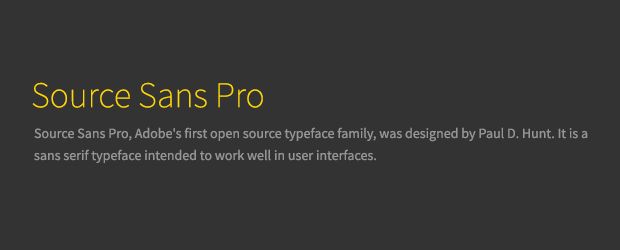
Free fonts similar to arial. 5 google web font alternatives to helvetica and arial. It was designed by a team headed by robin nicholas and patricia saunders for monotype typography in 1982. Although we have the largest database of fonts, the search for a font from an image gets mixed results like the image above.
Is it me or does arial get a bad rap! There is an updated version of this font: This most famous typeface is designed by two famous designers who work in monotype.
Thankfully there are hundreds of alternatives available and some of the best are free. It was released in 1982 by monotype and although commonly thought of as a helvetica ripoff, arial was primarily influenced by monotype grotesque, a typeface released 31 years before helvetica.that being said, arial was also designed to be metrically compatible with helvetica, so it shares. Debuting in 1982 on an ibm computer was the worlds most famously boring font called arial.